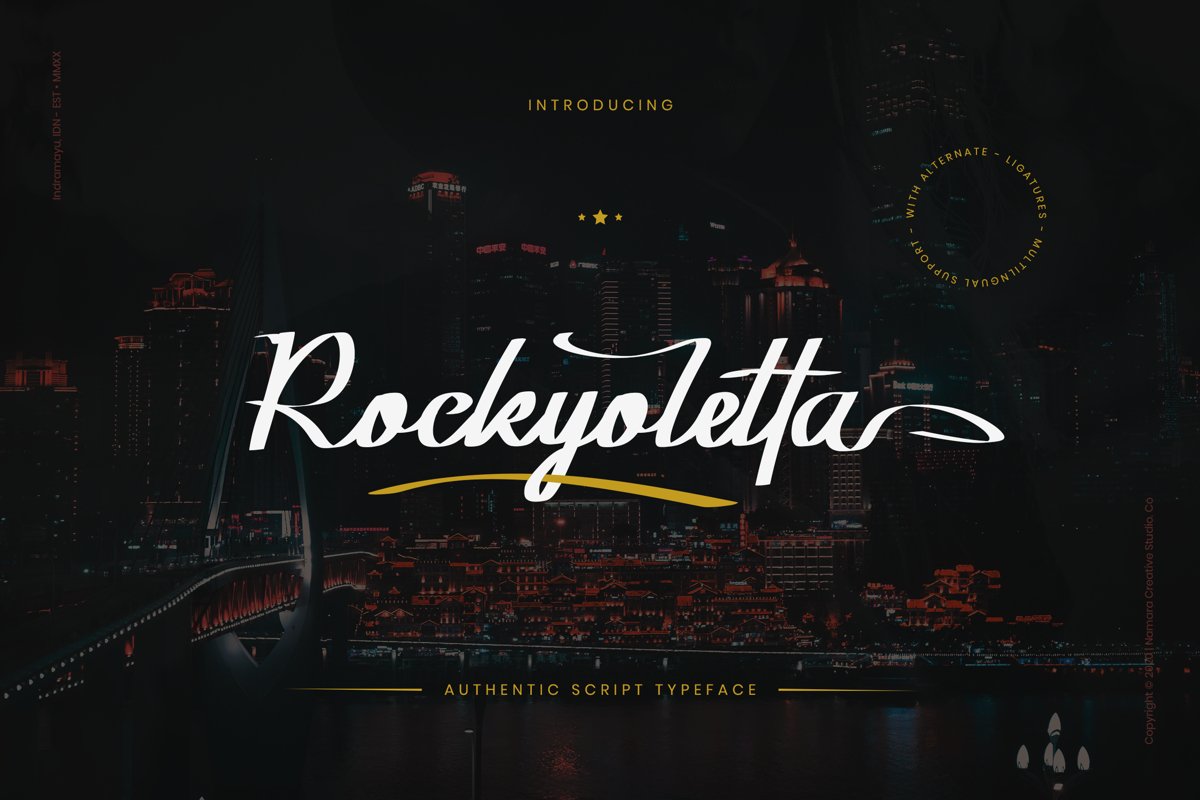
Rockyoletta Calligraphy Script
Rockyoletta Script Fonts
Rockyoletta is a stylish and incredibly elegant script font. It looks stunning on wedding invitations, thank you cards, quotes, greeting cards, logos, business cards and every other design which needs a handwritten touch.
Rockyoletta Calligraphy Script